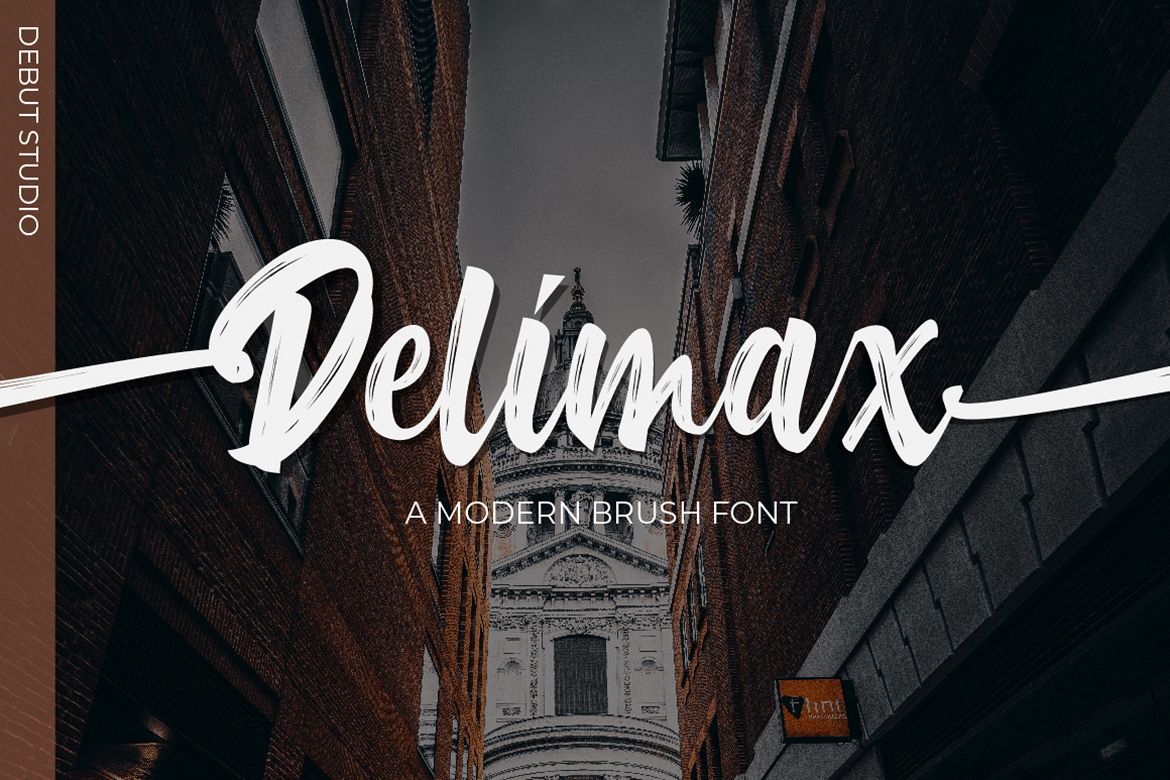
Delimax
Introducing, our latest stuff, the Delimax Brush Font
This font is suitable for young, passionate design, such as logo design, t-shirts, branding, and various other design purposes.
- Alternate Stylistic Character